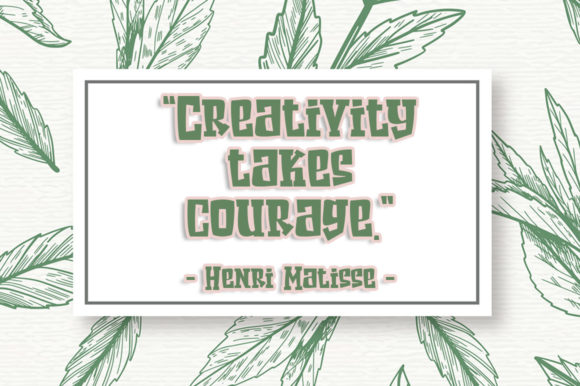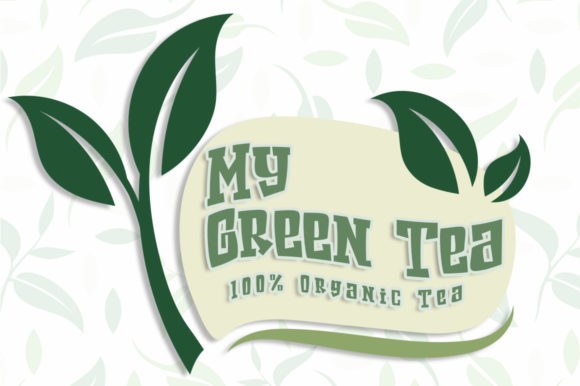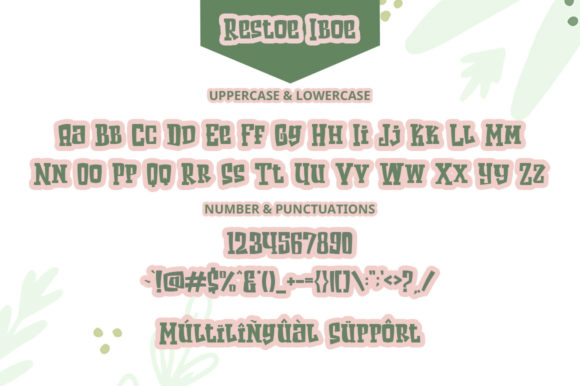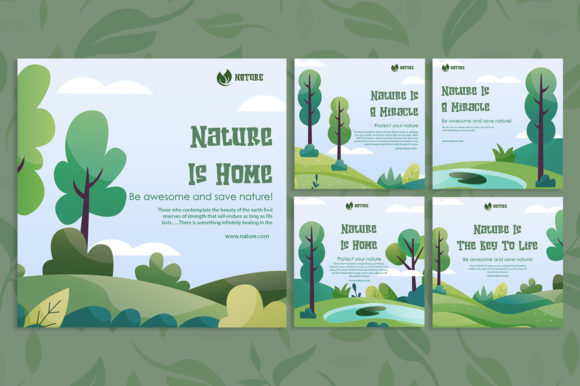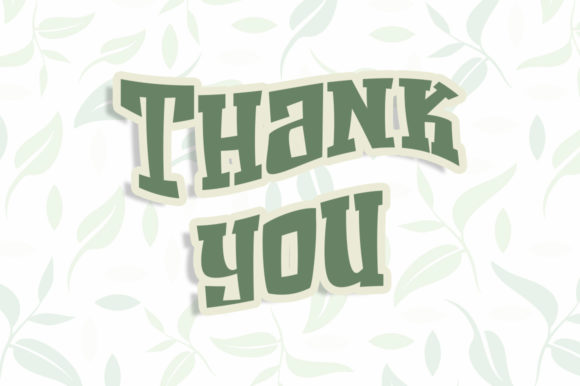
Introduction to Restoe Iboe Font
Have you ever been working on a creative project, pouring your heart and soul into it, and then – BAM! – you hit a roadblock because you can’t find the perfect font to bring your vision to life? That’s exactly what happened to me the last time I was designing a flyer for a friend’s art exhibition. I wanted something playful, quirky, and eye-catching, but nothing seemed to fit the bill. That’s when I stumbled upon the Restoe Iboe Font, and it was love at first sight!
As a designer, you know how valuable a good font can be to a project. That’s why I’m excited to share with you this amazing font that’s perfect for headings, flyers, greeting cards, and so much more. With its cartoon-like style and transparent background, the Restoe Iboe Font is a game-changer for any creative project.
Key Features of Restoe Iboe Font
- Unique, modern font style with a transparent background, perfect for overlaying on images
- Includes multiple font styles, including regular and bold weights
Honest Review: Restoe Iboe Font
I recently stumbled upon the Restoe Iboe Font while searching for a design resource for my creative project. I was drawn to its unique aesthetic and high quality, which made me eager to give it a try.
- ✨ Unique and elegant design: The Restoe Iboe Font boasts a sophisticated look that can elevate any design project.
- ✨ High-quality vectors: The font’s crisp and clean lines make it perfect for use in a variety of creative projects.
- ⚠️ Limited language support: The font may not support as many languages as some other fonts, which could be a drawback for international projects.
- ⚠️ Transparent background: The font’s transparent background may not be suitable for all designs, particularly those with complex backgrounds.
Overall, I’m impressed with the Restoe Iboe Font’s design and quality. While it may have some limitations, it’s a great option for designers looking for a unique and high-quality font for their creative project.
Tips for Getting the Most Out of Restoe Iboe Font
To get the most out of Restoe Iboe Font, use it in creative ways such as highlighting text, creating titles, or designing logos. You can also experiment with different font sizes and styles to add visual interest to your project.
Restoe Iboe Font is perfect for various creative projects, including graphic design, digital art, and print materials. Its high-quality design and transparent background make it an ideal choice for designers looking for a unique and eye-catching font.
Alternatives to Restoe Iboe Font
Open Sans is a popular design resource known for its clean and modern look. It’s ideal for creative projects that require a professional and approachable tone. This font is perfect for documents, presentations, and websites that need a clear and easy-to-read typography.
Compared to Restoe Iboe Font, Open Sans has a more minimalist design and is more suitable for body text. While Restoe Iboe Font has a unique and playful feel, Open Sans provides a more neutral and versatile option.
Lato is a high-quality design resource that offers a beautiful and elegant look. It’s perfect for creative projects that require a sophisticated and refined tone. This font is ideal for logos, branding, and websites that need a premium and stylish typography.
Lato has a more polished and refined design compared to Restoe Iboe Font. While Restoe Iboe Font has a quirky and playful feel, Lato provides a more sophisticated and elegant option.
Montserrat is a free download design resource that offers a modern and urban look. It’s perfect for creative projects that require a gritty and edgy tone. This font is ideal for documents, presentations, and websites that need a bold and eye-catching typography.